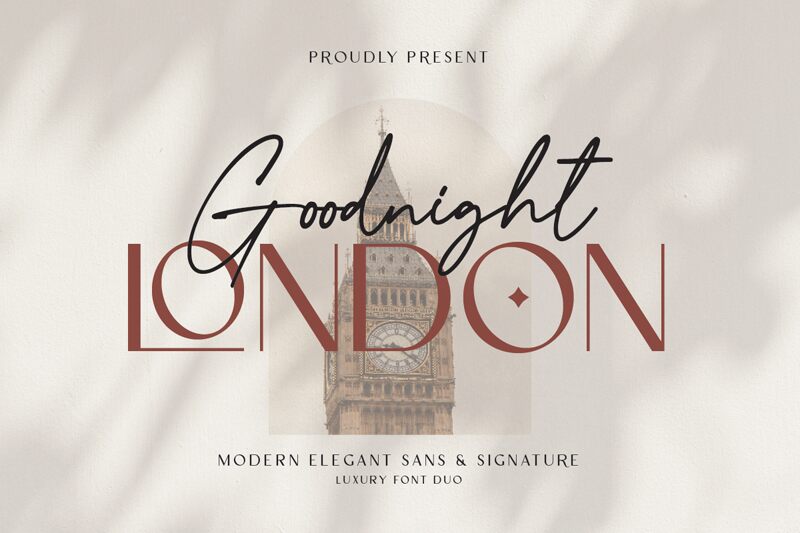
Goodnight London Script is a light and elegant handwritten font designed by Ronny Studio. Its delicate lines and graceful curves make it perfect for projects that require a touch of femininity and sophistication, such as wedding invitations, branding, or book covers. Use it to add a personal and intimate feel to your designs, or to create a sense of whimsy and romance. Goodnight London Script is the perfect font for anyone looking to add a touch of elegance to their work.
Goodnight London Script
Ronny Studio